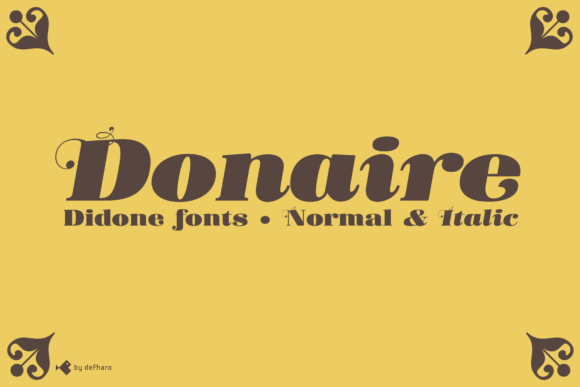
Donaire Font: A Masterful Blend of Strength and Elegance
The Donaire font is a stunning typeface that has captured the attention of designers and typography enthusiasts alike. With its unique blend of thick vertical lines, thin horizontal lines, and delicate serifs, this font has achieved a perfect balance between legibility and visual impact. In this article, we’ll delve into the world of Donaire font, exploring its distinctive features, and the ways in which it can elevate your design projects.
The Design Philosophy Behind Donaire Font
Donaire font is built on a square proportion, which provides a solid foundation for its striking design. The font’s creator aimed to combine the visual strength of thick vertical lines and thin horizontal lines, resulting in a typeface that exudes confidence and elegance. The addition of transitional serifs and teardrop endings adds a touch of delicacy, preventing the font from feeling too heavy or overpowering.
Key Features of Donaire Font
So, what sets Donaire font apart from other typefaces? Here are some of its key features:
- Thick Vertical Lines: The font’s vertical lines are sturdy and robust, providing a sense of strength and stability.
- Thin Horizontal Lines: In contrast, the horizontal lines are delicate and refined, adding a touch of sophistication to the font.
- Transitional Serifs: The serifs in Donaire font are carefully crafted to provide a smooth transition between letters, enhancing legibility and visual flow.
- Teardrop Endings: The teardrop endings add a decorative flourish to the font, injecting a sense of elegance and refinement.
Ornate Drop Caps, Arrows, and Embellishments
One of the standout features of Donaire font is its extensive range of ornate drop caps, arrows, and other embellishments. These decorative elements can be used to add a touch of luxury and sophistication to your designs, making them perfect for high-end branding, packaging, and editorial projects.
Example of Ornate Drop Caps
Legibility and Visual Impact
So, how does Donaire font achieve a balance between legibility and visual impact? The answer lies in its carefully crafted design. The font’s square proportion, combined with its thick vertical lines and thin horizontal lines, creates a typeface that is both visually striking and highly legible.
Whether you’re designing a headline, body copy, or title, Donaire font is a versatile choice that can adapt to a wide range of design applications. Its unique blend of strength and elegance makes it perfect for:
- Branding and Identity: Use Donaire font to create a lasting impression with your brand identity, packaging, and marketing materials.
- Editorial Design: The font’s legibility and visual impact make it an excellent choice for editorial projects, such as magazines, newspapers, and books.
- Digital Design: Donaire font can also be used for digital projects, including websites, apps, and social media graphics.
Tips for Using Donaire Font
To get the most out of Donaire font, here are some tips to keep in mind:
- Experiment with Font Sizes: Donaire font looks great in a range of font sizes, from large headlines to smaller body copy.
- Play with Color: The font’s versatility means it can be paired with a wide range of colors, from bold and bright to subtle and muted.
- Mix and Match: Don’t be afraid to combine Donaire font with other typefaces to create a unique and visually striking design.
In conclusion, Donaire font is a masterful blend of strength and elegance, making it a versatile choice for a wide range of design applications. Its unique features, including ornate drop caps, arrows, and embellishments, add a touch of luxury and sophistication to any design project.
Whether you’re a designer, typography enthusiast, or simply looking for a new font to add to your arsenal, Donaire font is definitely worth exploring. With its perfect balance of legibility and visual impact, this font is sure to make a lasting impression.